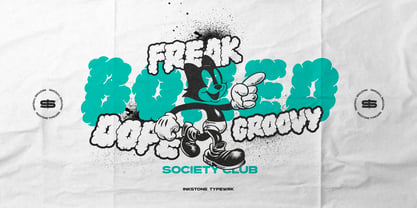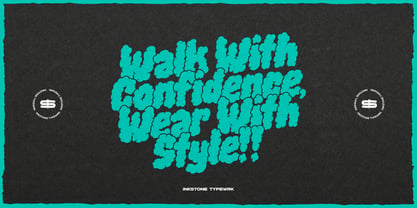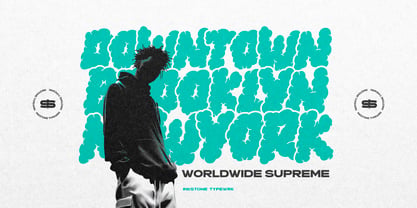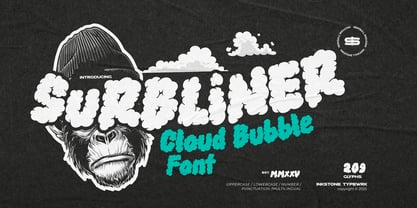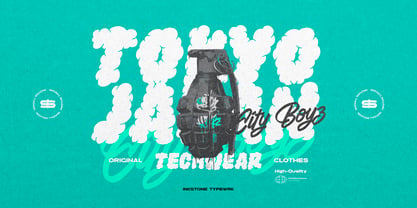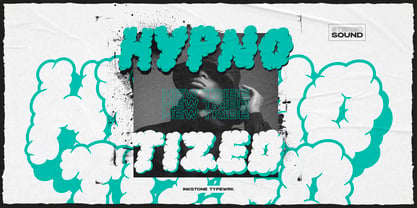
Surbliner
by Inkstone Typewrk
The Surbliner Font Family was designed by Andhika Pradana, Yono Asmadiputra and published by Inkstone Typewrk. Surbliner contains 1 styles. More about this family
Surbliner - Cloud Bubble Font Float into a world of funky, playful energy with Surbliner, the chunky, illustrated bubble font that feels as light as a cloud but packs a bold punch. With its cheerful curves and bubbly charm, this typeface brings an effortless mix of fun, creativity, and retro coolness to any design. Perfect for vibrant posters, quirky branding, dreamy merch, and eye-catching headlines, Surbliner delivers that soft yet statement-making look. Whether you're crafting a whimsical logo, a cute social media post, or a nostalgic throwback design, this font keeps it bouncy, bold, and irresistibly fun.
Designers: Andhika Pradana, Yono Asmadiputra
Foundry: Inkstone Typewrk
Inkstone Typewrk is a bold and visionary type foundry based in Surabaya, Indonesia. Established in 2025, we are multidisciplinary designers driven by fearless ideas and stylish execution. We craft letterforms with attitude—sculpting typefaces that carry a rebellious edge. We don’t just design fonts—we shape type.Founded by Yono Asmadiputra and Andhika Pradana, a dynamic duo united by their love for expressive typography, Inkstone Typewrk is built on passion, collaboration, and a shared obsession for detail. Their synergy fuels a creative playground where bold ideas meet refined craftsmanship.